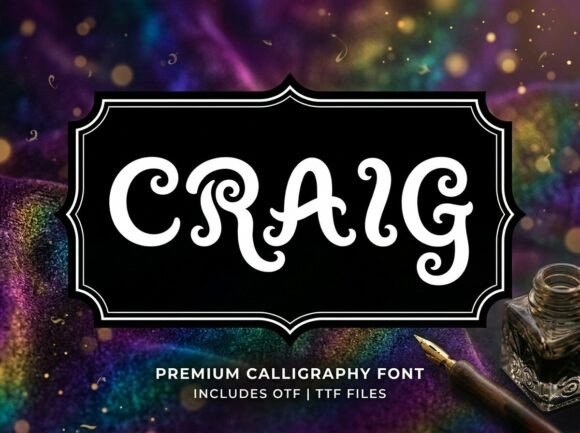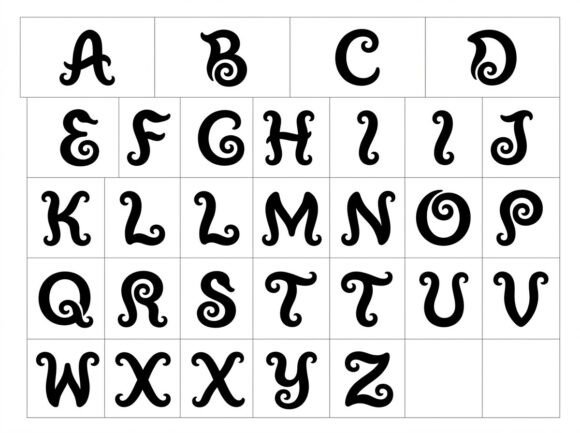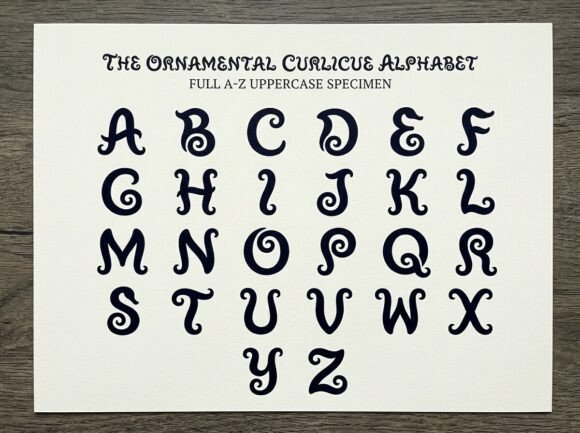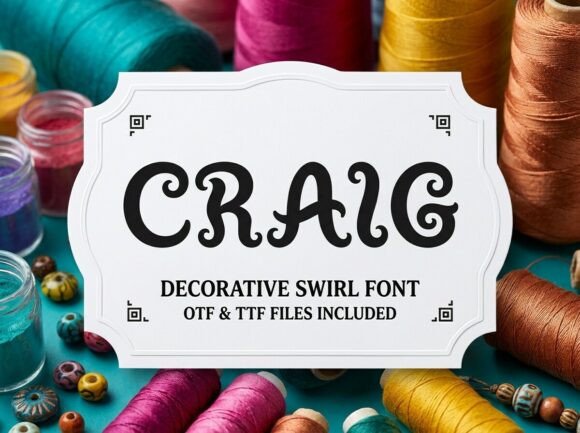
Experience Whimsical Elegance with Craig Font
In the realm of typography, few fonts manage to strike a balance between playfulness and sophistication as effortlessly as Craig. This decorative swirl font is a masterpiece of design, boasting bold letterforms that are adorned with intricate, curling flourishes and rhythmic swirl motifs. The result is a typeface that not only captures the authentic essence of artisanal craftsmanship but also brings a magical aesthetic to any visual project.
The Essence of Craig Font
Craig Font is more than just a collection of letters; it’s an experience. Its playful yet sophisticated silhouette, characterized by airy loops and elegant swirls, provides a unique and imaginative personality that can elevate any brand or creative project. Whether you’re designing artisanal product labels, boutique apothecary branding, creative hobbyist logos, or ethereal social media headers, Craig delivers a sense of handcrafted prestige and polished, effortless beauty.
Unleashing Creative Potential
For designers and crafters, finding the right font can be the key to unlocking the full potential of a project. Craig Font offers a distinctive approach to visual storytelling, allowing creators to convey their message with elegance and whimsy. Its bold and intricate design makes it an extraordinary choice for those looking to stand out in a crowded market. With Craig, you can add a touch of magic to your work, making it more engaging and memorable for your audience.
Applications of Craig Font
The versatility of Craig Font is one of its most compelling features. Here are a few ways this enchanting typeface can be used:
- Artisanal Product Labels: Add a touch of elegance and craftsmanship to your product labels, making them stand out on store shelves.
- Boutique Apothecary Branding: Create a unique and sophisticated brand identity that reflects the quality and care of your products.
- Creative Hobbyist Logos: Give your brand a playful yet professional look that appeals to customers looking for handmade or unique items.
- Ethereal Social Media Headers: Elevate your social media presence with headers that capture attention and convey your brand’s personality.
The Benefits of Using Craig Font
Choosing Craig Font for your projects comes with several benefits:
- Unique Personality: Craig’s distinctive design ensures your project stands out with a unique and imaginative personality.
- Versatility: Suitable for a wide range of applications, from branding to digital content.
- Elegance and Whimsy: Combines sophisticated elegance with playful whimsy, making it perfect for brands looking to convey a sense of artisanal quality.
- Effortless Beauty: Adds a polished, effortless beauty to your visual communication, engaging your audience effectively.
Craig Font is a decorative swirl font that offers a pinnacle of whimsical elegance for visual storytelling. Its bold, intricate design and rhythmic swirl motifs make it an ideal choice for designers and crafters looking to add a touch of magic to their projects. With its versatility and unique personality, Craig can help your brand stand out, conveying a sense of handcrafted prestige and polished beauty. Experience the enchanting world of Craig Font and elevate your visual communication to new heights of creativity and elegance.